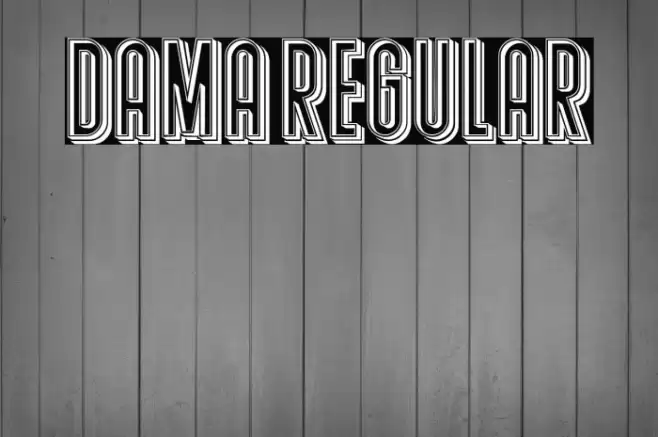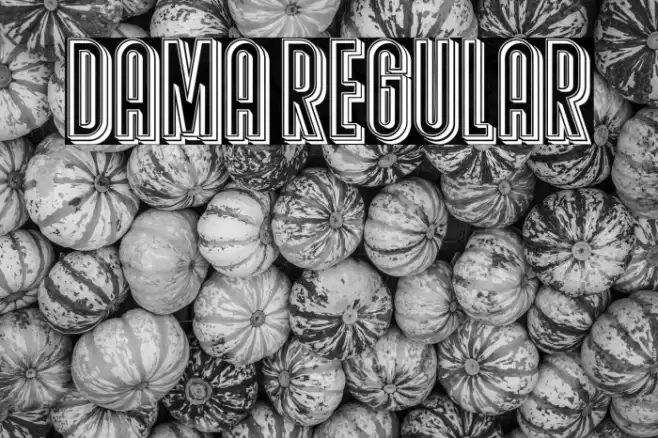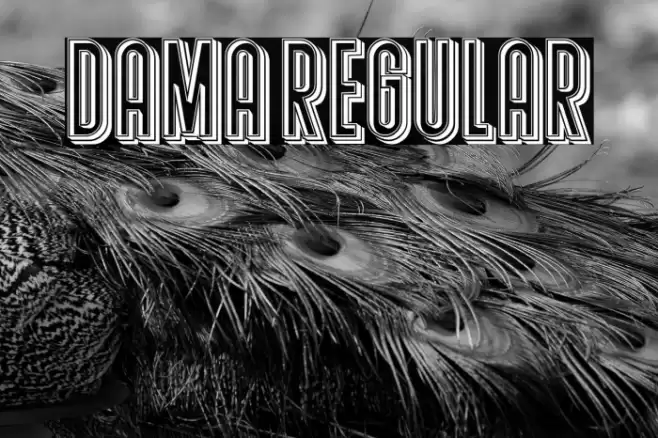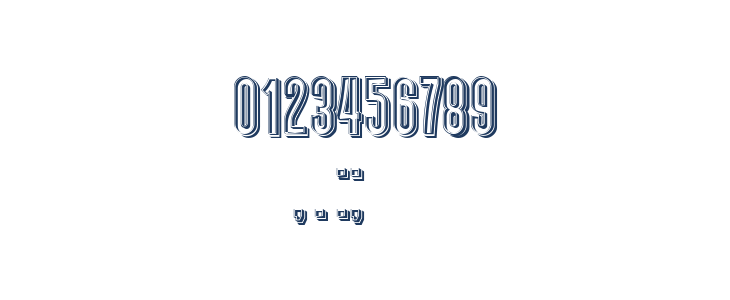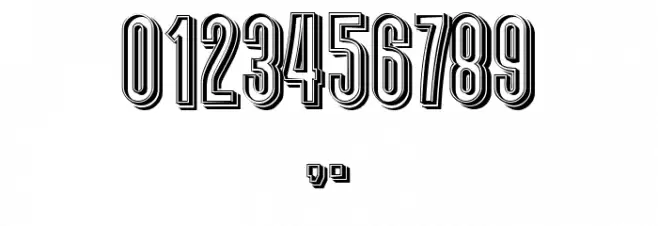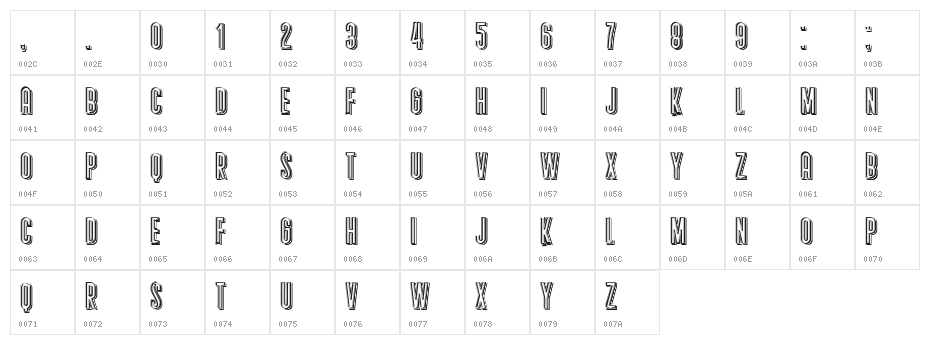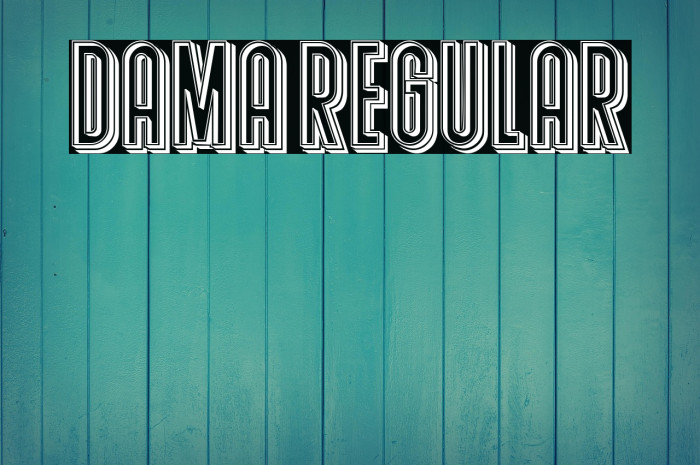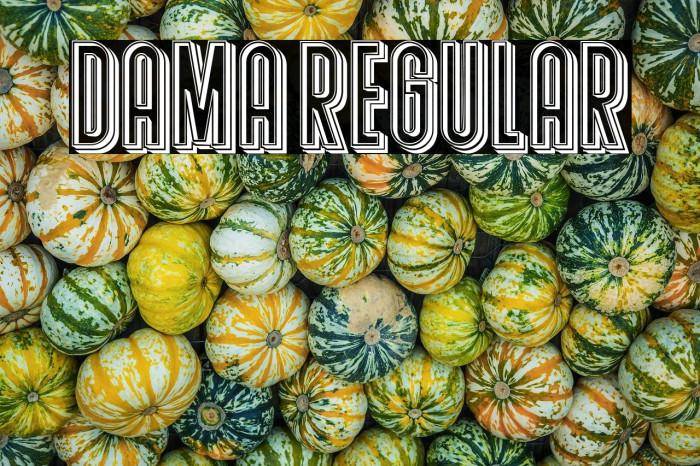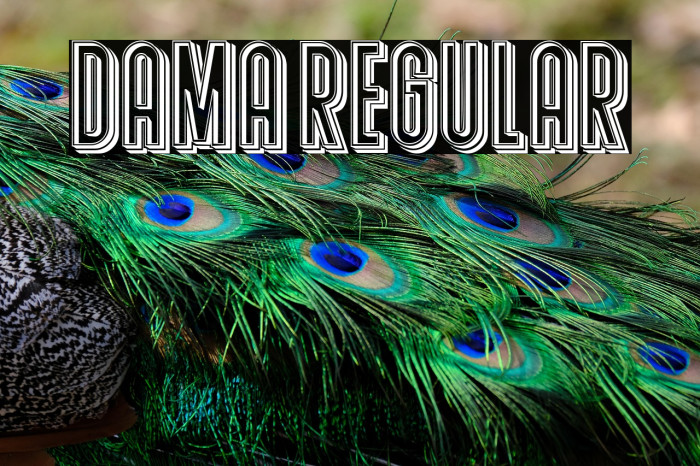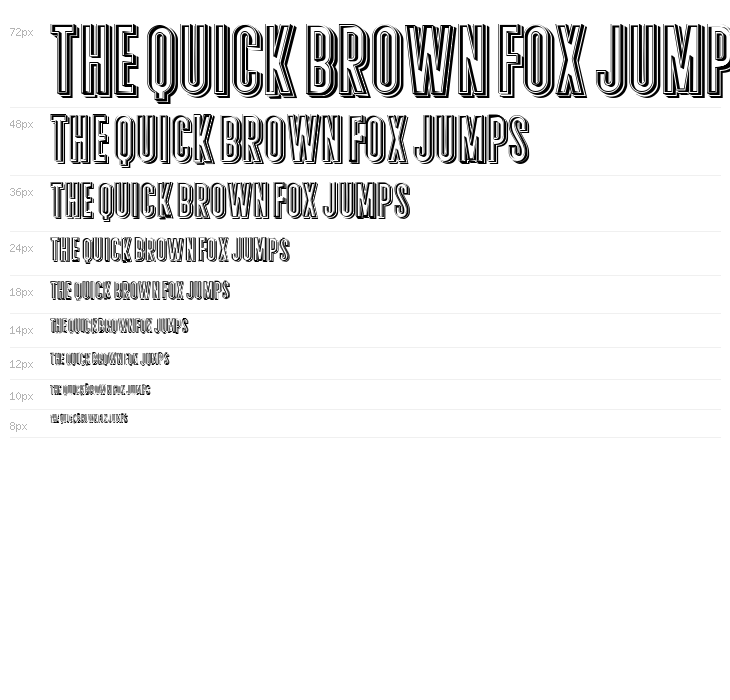
Dama Regular Font
Dama Regular Description
This font features a bold and striking design with a three-dimensional effect created by layered outlines. The uppercase letters are prominent and commanding, making them ideal for attention-grabbing headlines. The characters are well-defined with a consistent stroke width, adding to the overall boldness. The numbers and punctuation marks follow the same style, ensuring a cohesive look across all text elements. The font's unique style is both modern and decorative, making it suitable for various creative applications.
A bold, three-dimensional decorative font with layered outlines from Uncategorized fonts.
- Proposed Projects: Ideal for posters, logos, branding, and any project requiring a bold, eye-catching typeface.
- Overall Style: Modern, Decorative